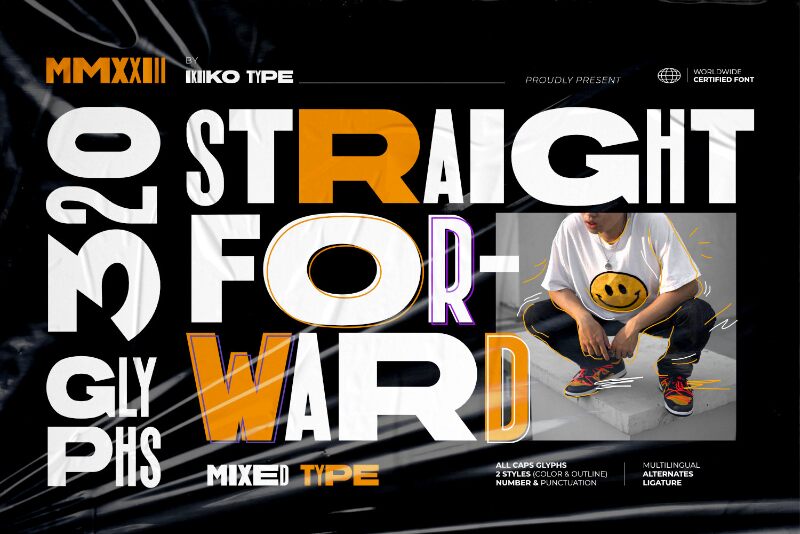
Straight Forward DEMO
Straight Forward font by Ikiiko Type is a distorted bold display type with an expanded style and monospaced geometry. Its characters follow an abnormal yet rhythmic structure where each glyph carries a high futuristic essence. Enjoy its minimalist pixel-perfect construction in any modern artwork!